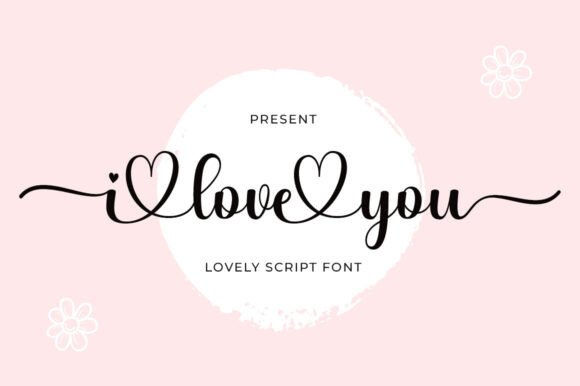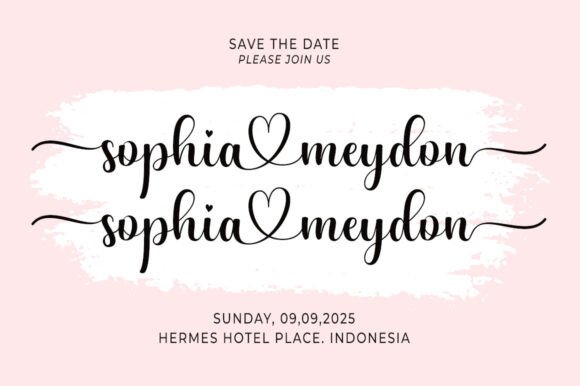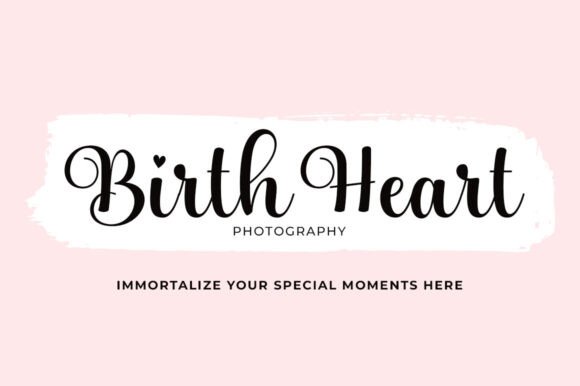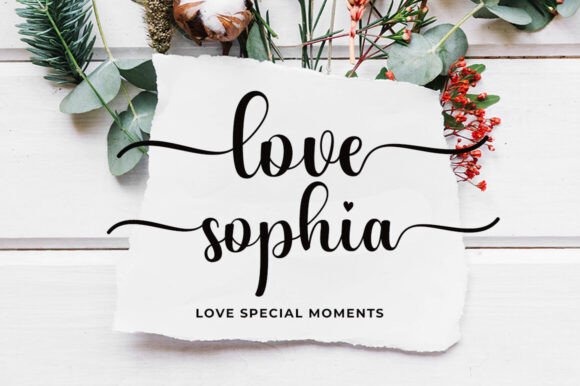
I Love You Font
About the I Love You Font
Discover the charm of I Love You Font. This font is a perfect blend of modern aesthetics and classic appeal. I Love You is a romantic handwritten font. Perfect for writing Valentine’s Day letters or invitations, this font will most certainly elevate your designs. This font is PUA encoded which means you can access all of the glyphs and swashes with ease!
Its expressive, casual style makes it ideal for projects requiring a touch of hand-drawn warmth, such as wedding stationery, social media graphics, or short-form content like quotes or logos. However, the script nature and varying stroke weights make it unsuitable for extended body text or UI elements where legibility is paramount.
Pair it with a clean sans-serif like Montserrat for a modern contrast or a classic serif like Garamond for a more traditional feel. A geometric sans-serif, such as Futura, could also work well for a balanced and sophisticated look. The font’s overall personality is undeniably romantic and friendly, yet sophisticated enough for upscale branding.
I Love You Font Usage Examples
I Love You Font Example